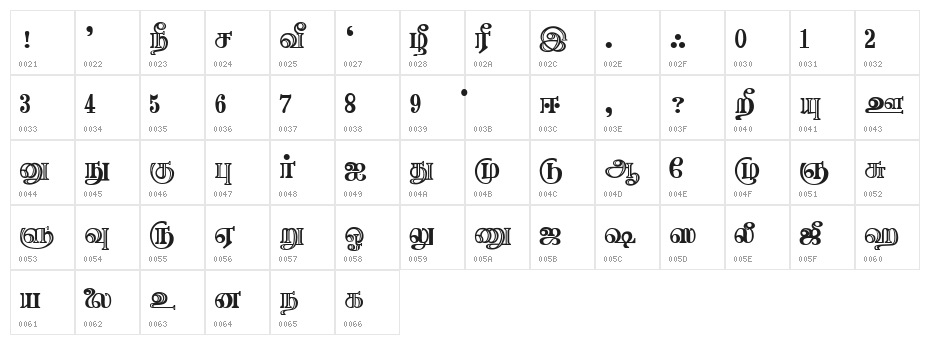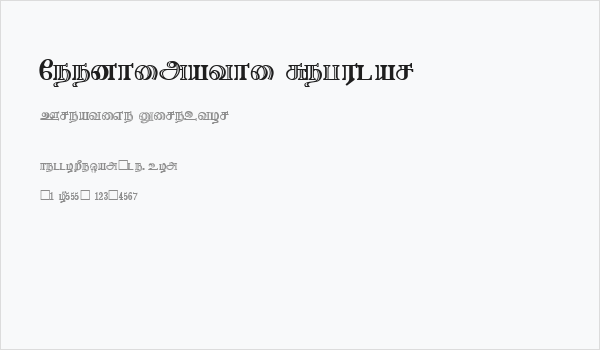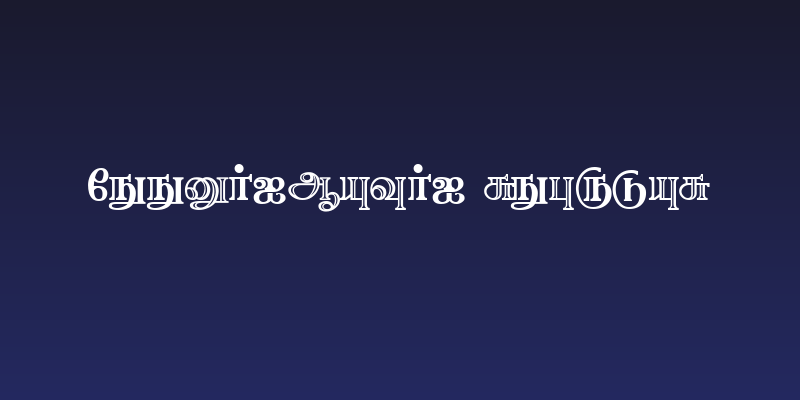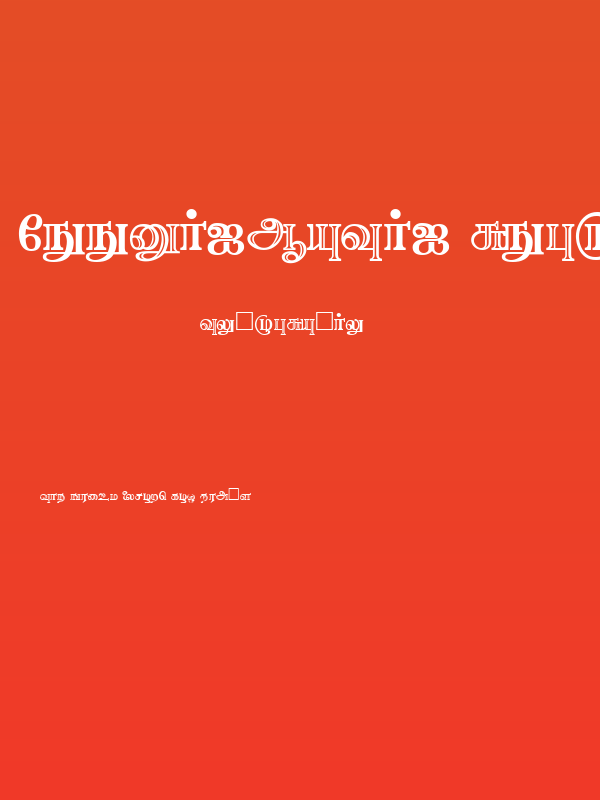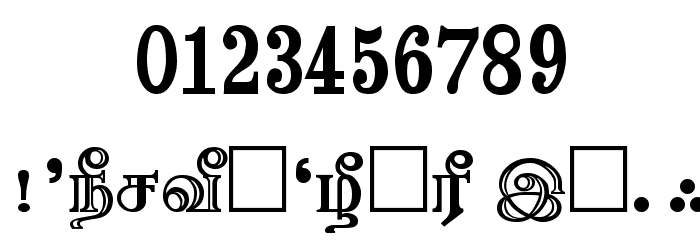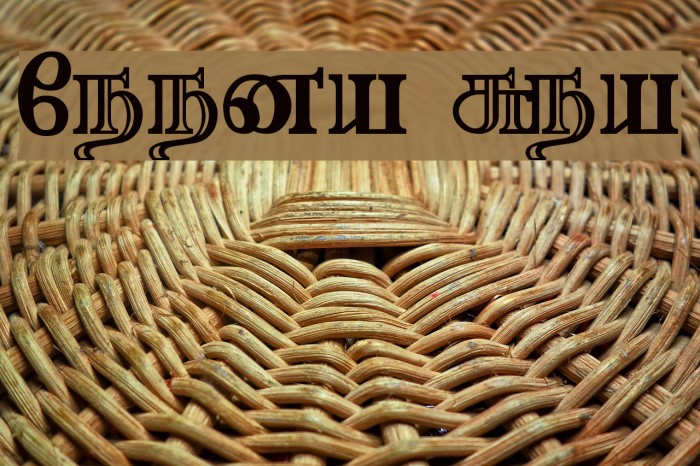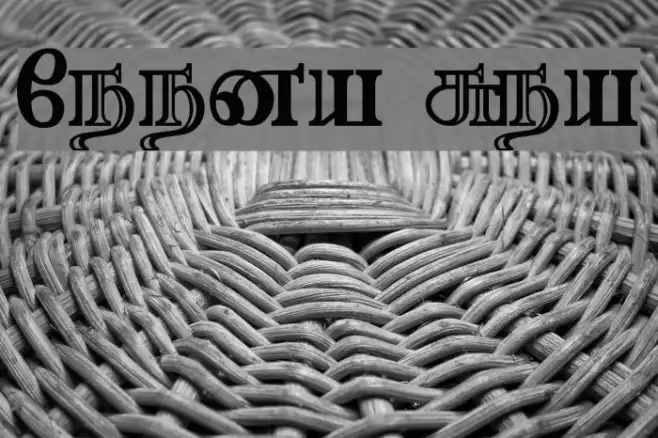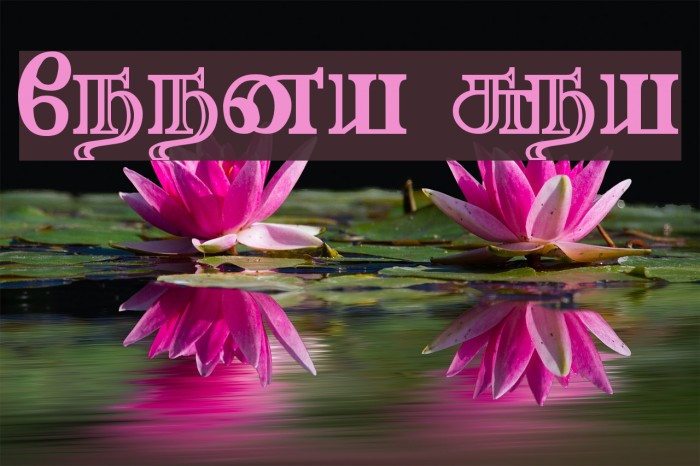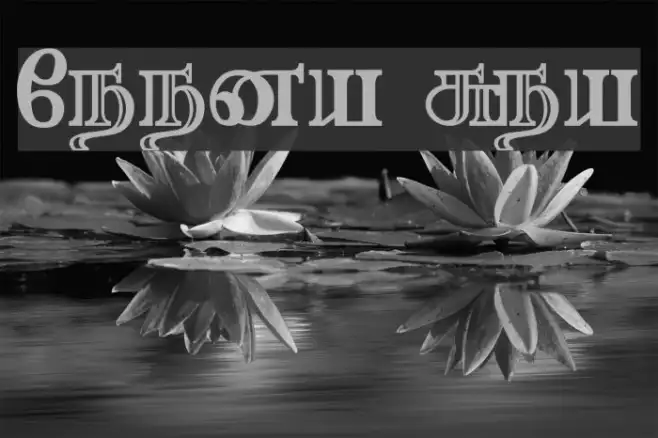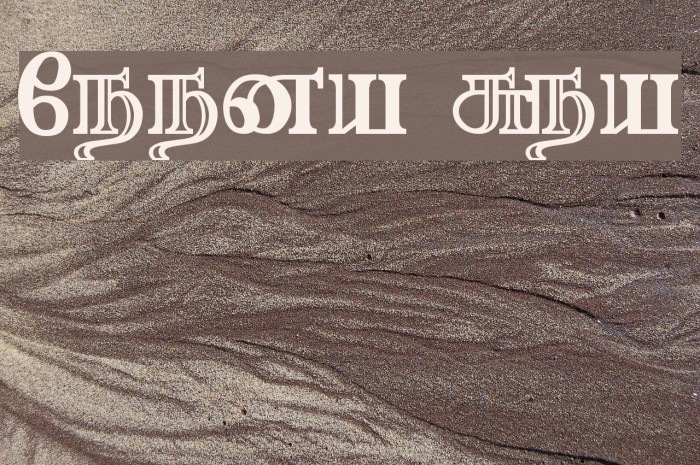
Needhimathi Regular Font
Needhimathi Regular Description
This font features a traditional and elegant Tamil script with a classic serif style. The characters are well-defined with a moderate stroke contrast, providing a clear and readable appearance. The numerals are bold and distinct, complementing the script's overall aesthetic. The special characters are crafted to match the script's style, maintaining consistency throughout the font. The design is suitable for both digital and print media, offering versatility in various applications.
| Use Case | Headlines, Body text, Educational materials |
| Proposed Projects | Ideal for cultural publications, educational materials, and formal documents requiring Tamil script. |